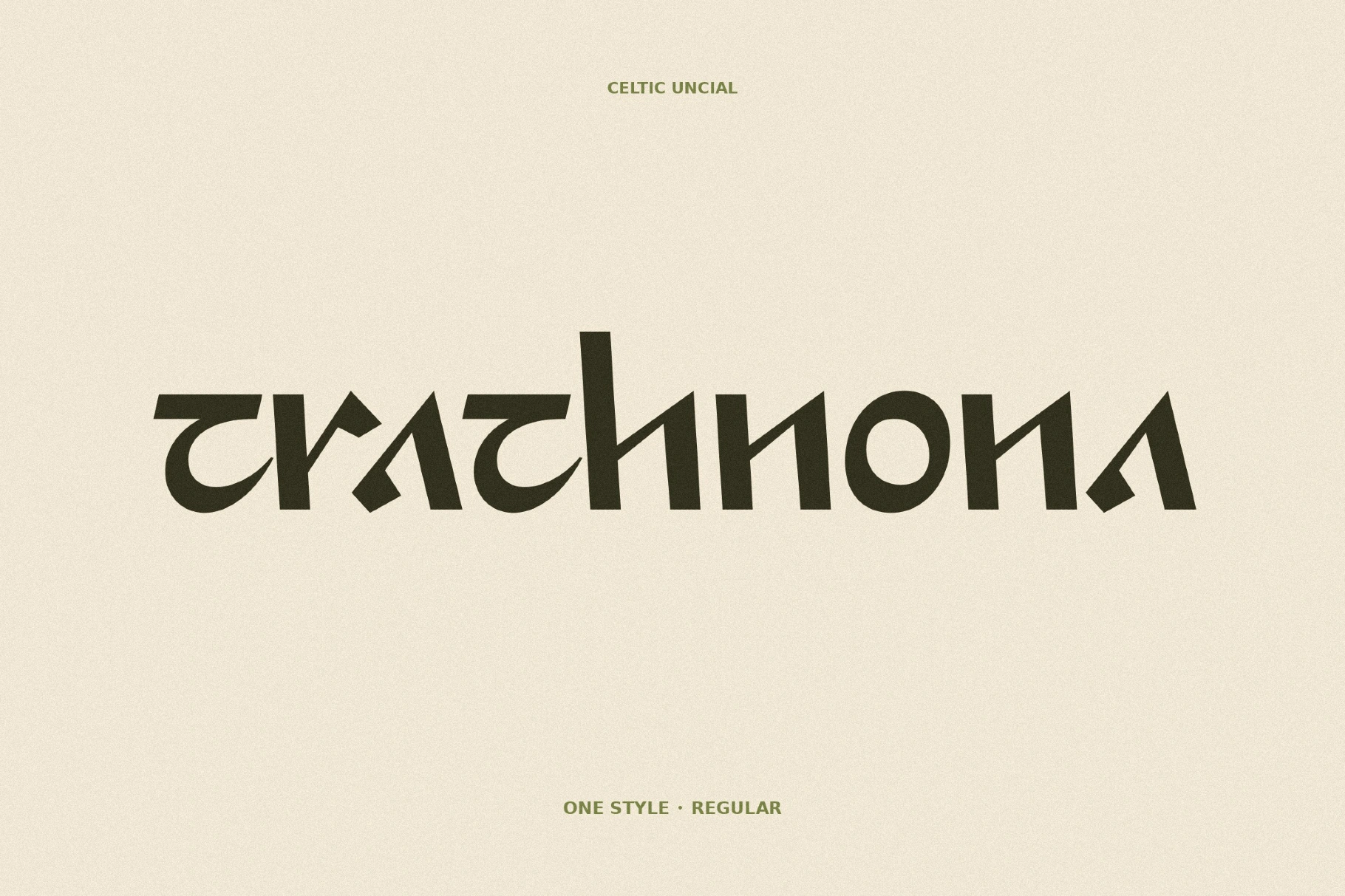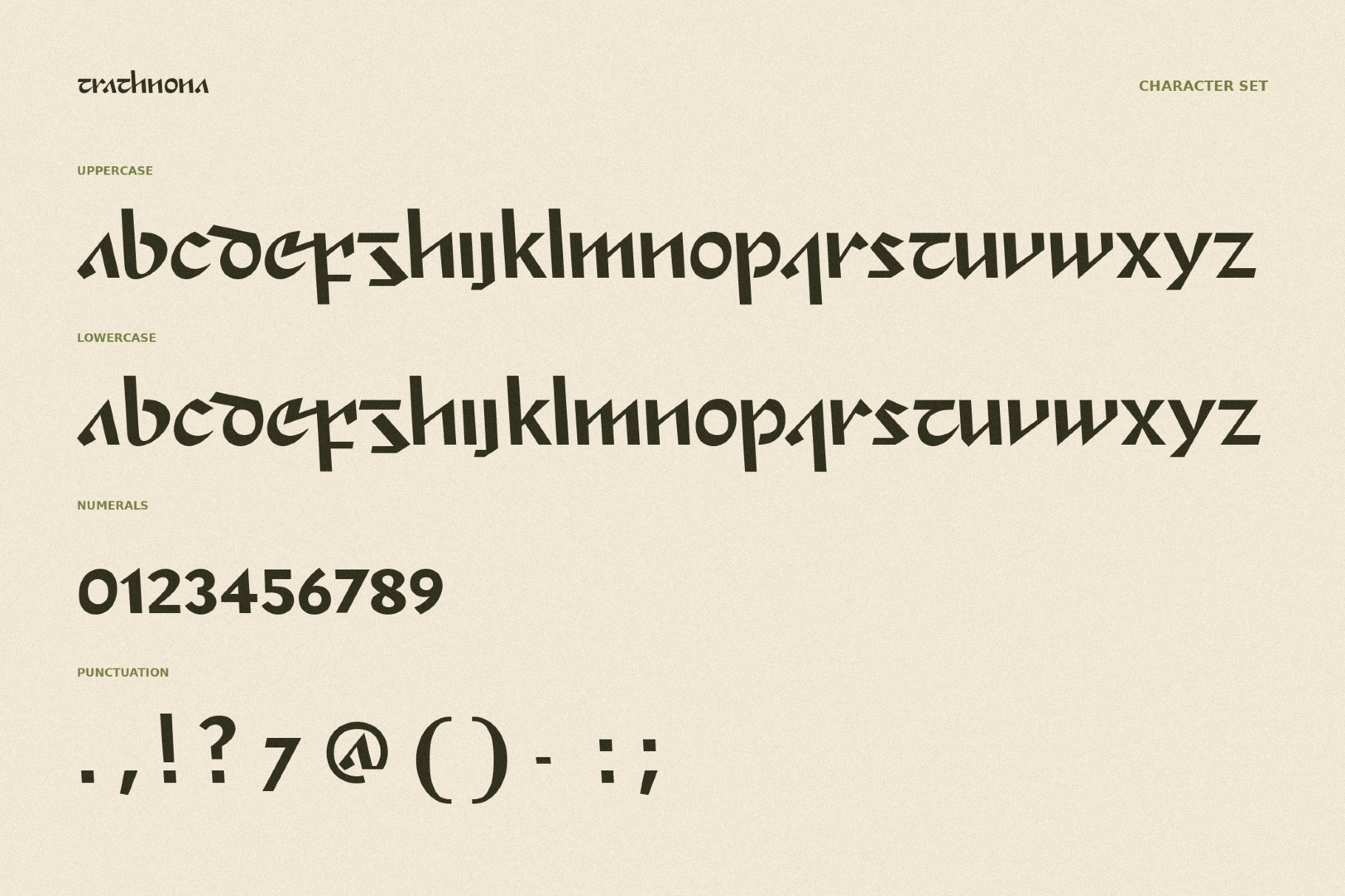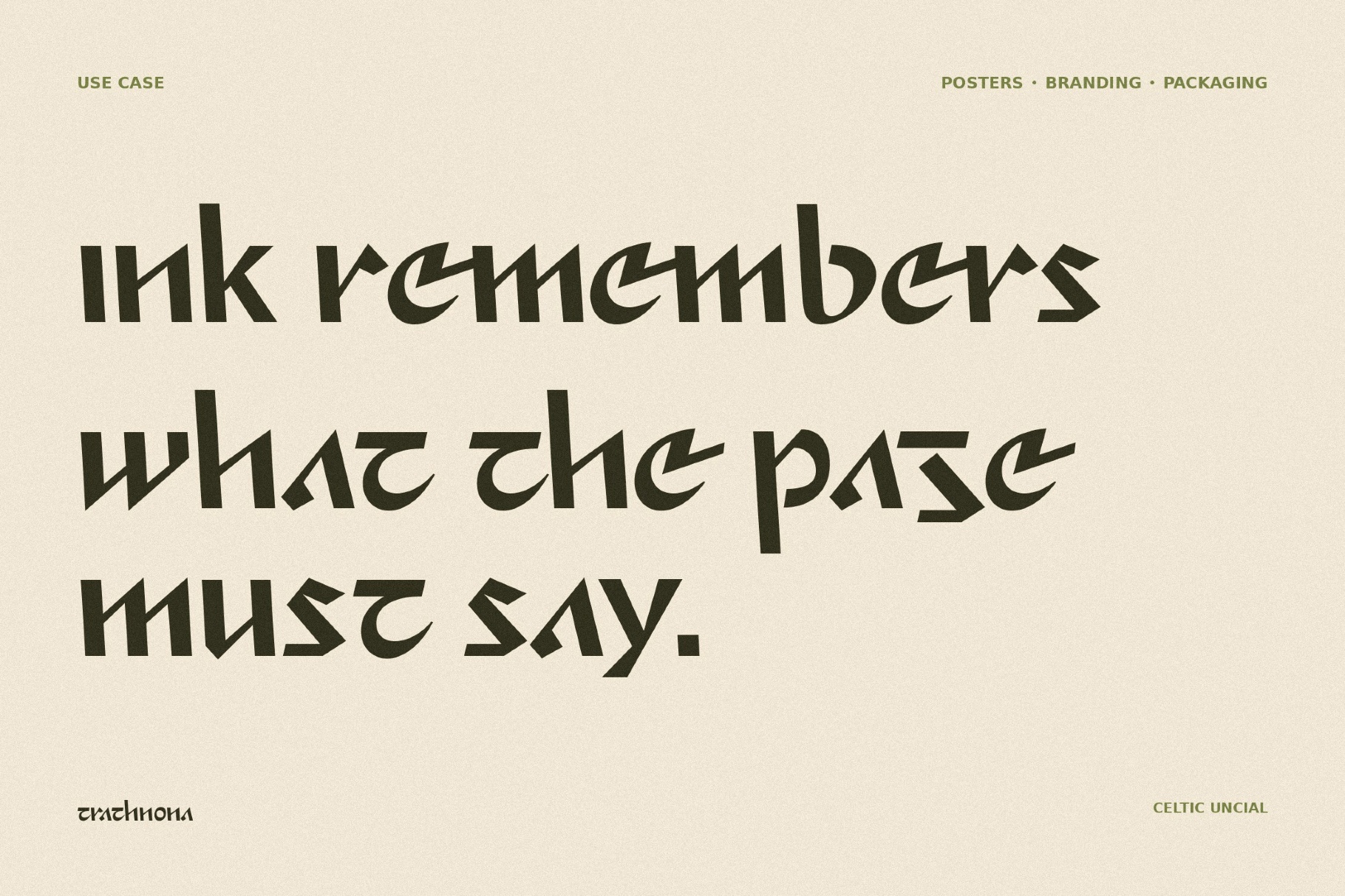
Trathnona - Runic Fantasy Font
Trathnona has a crisp, mythic presence, as if Celtic manuscript forms had been rebuilt for game logos, festival posters, and contemporary cultural graphics. Its compact letter shapes, angular cuts, and rune-like rhythm are useful for designs that need a traditional look with a harder modern edge.